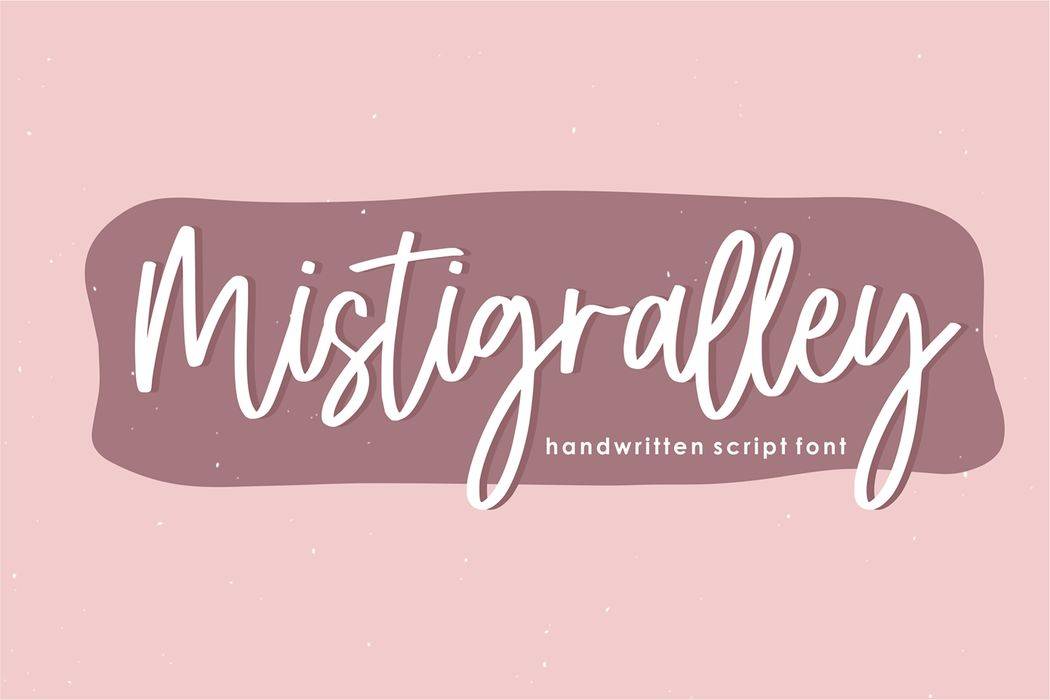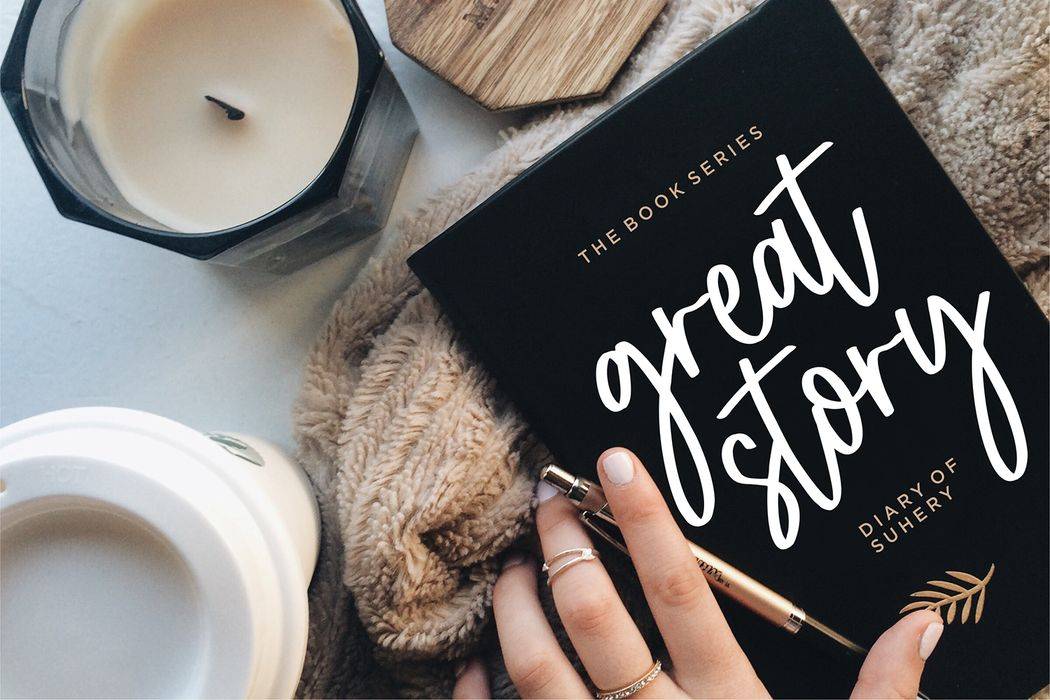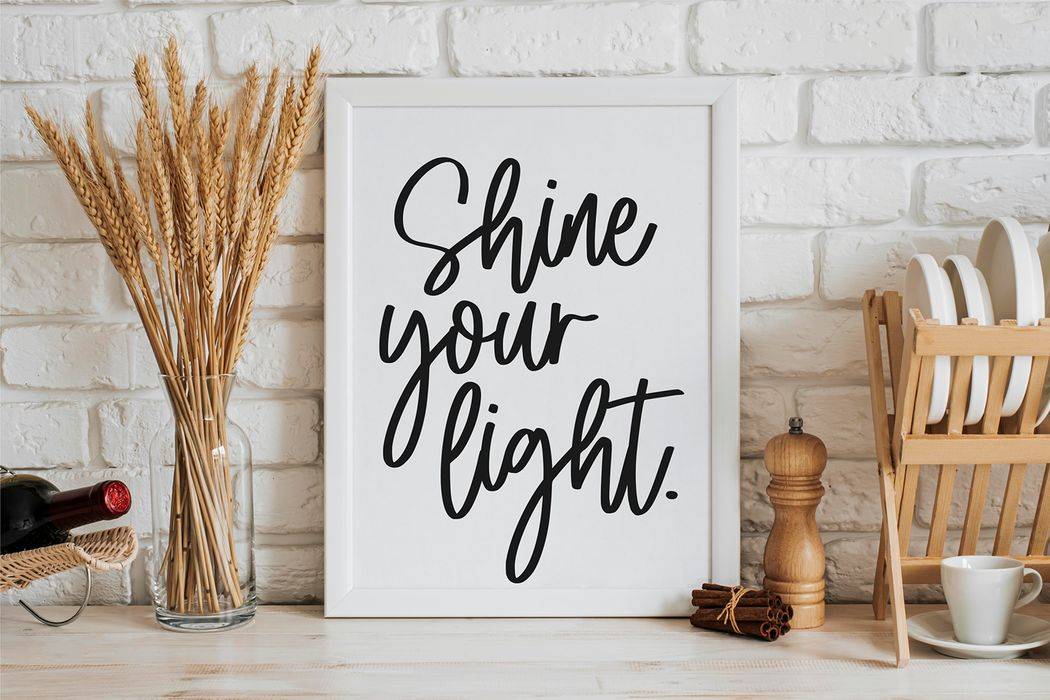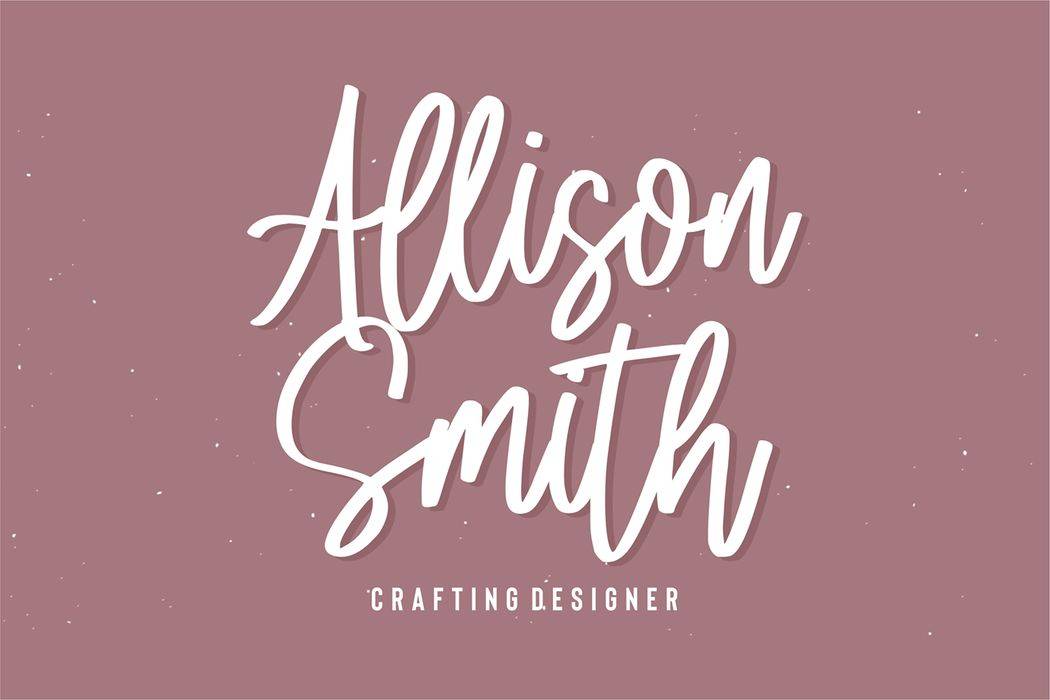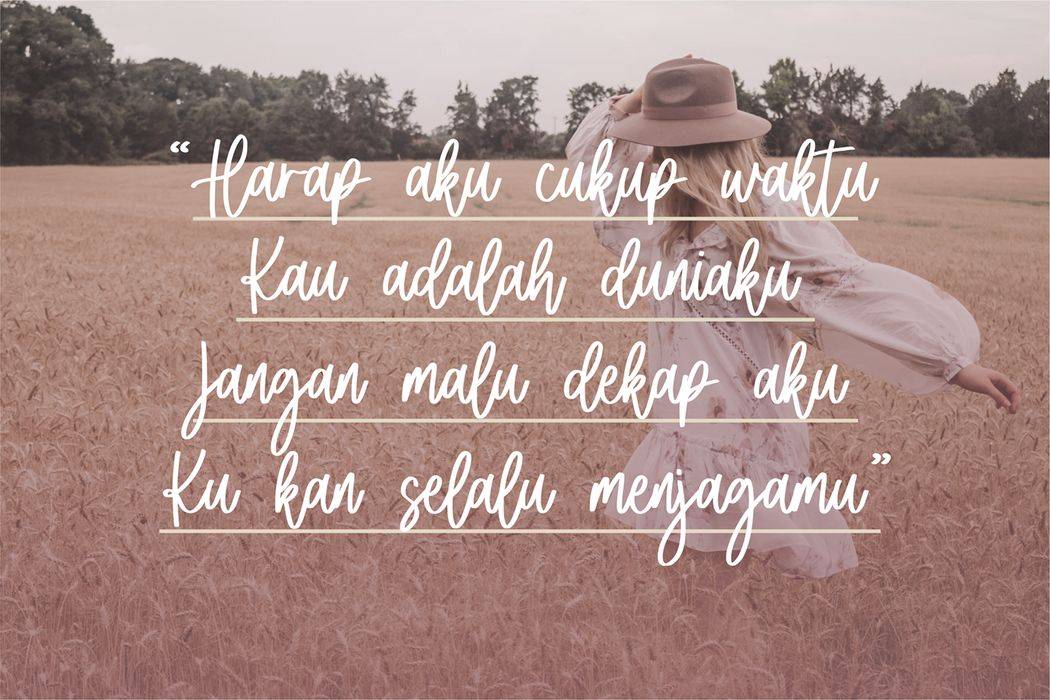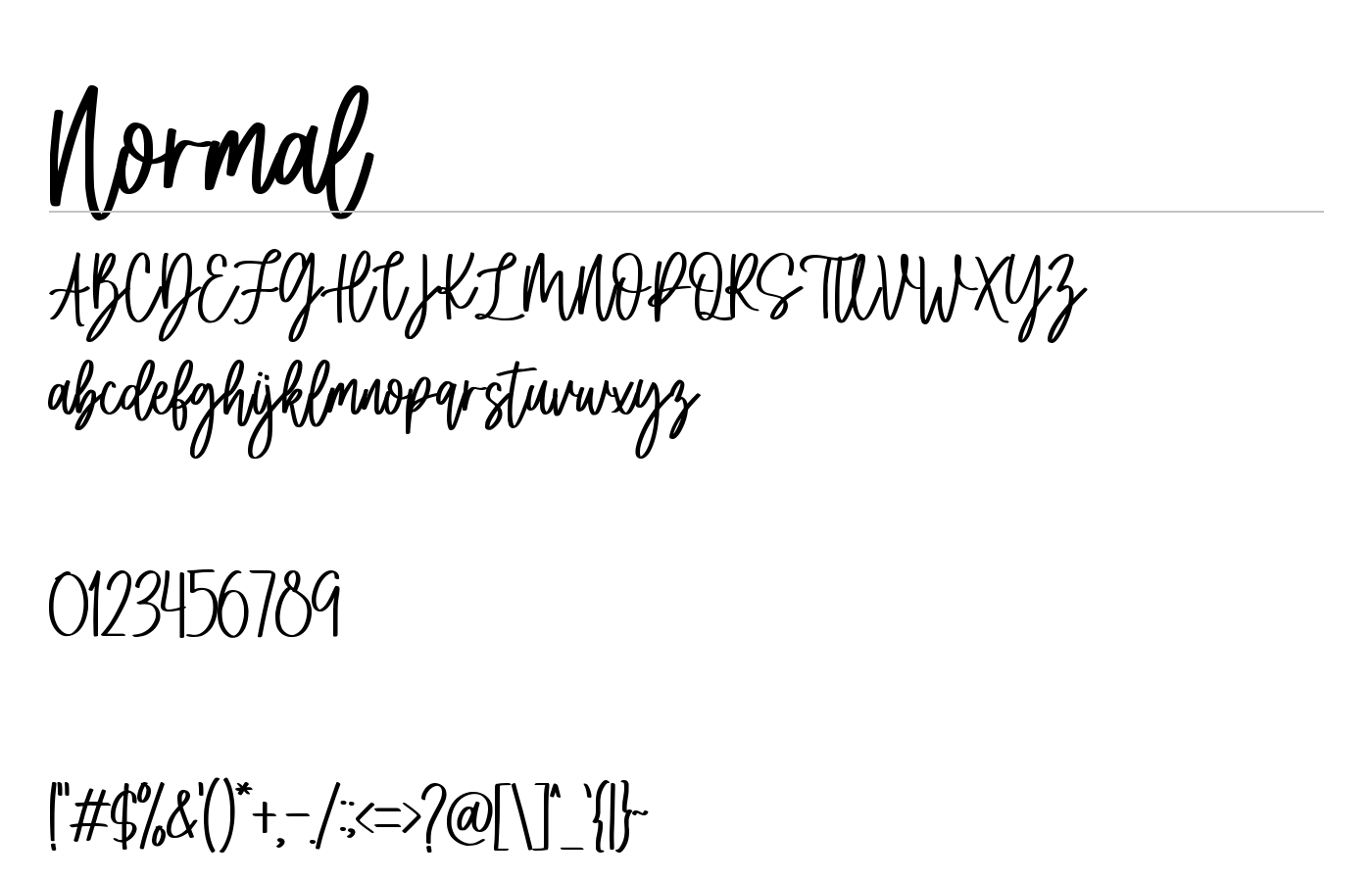
Mistigralley is a playful, handwritten script font with a casual, friendly vibe. Its slightly irregular, flowing strokes and tall x-height give it an approachable, modern feel, making it perfect for creative branding, invitations, and informal designs that want a personal touch. This font works well in headlines and display uses where a lively, human character is desired.
Mistigralley Font
About Mistigralley Font